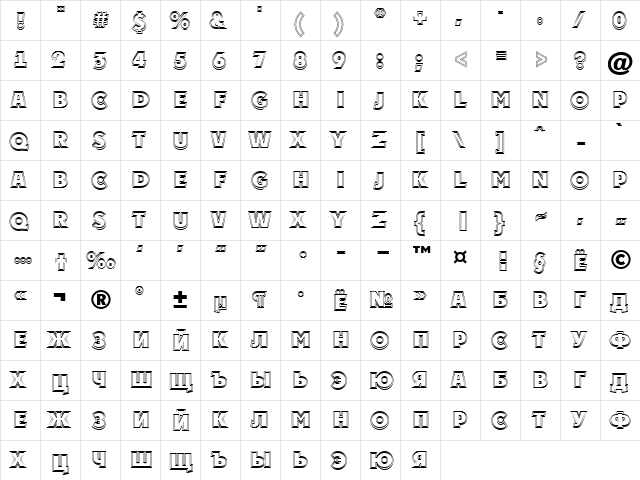
a_PlakatTitul2Otl ExtraBold
| Style | ExtraBold |
Design Context for a_PlakatTitul2Otl Typeface
a_PlakatTitul2Otl is a composed and adaptable typeface that performs quietly and consistently across a wide range of design contexts. Its bold stroke weight gives it real presence on the page.